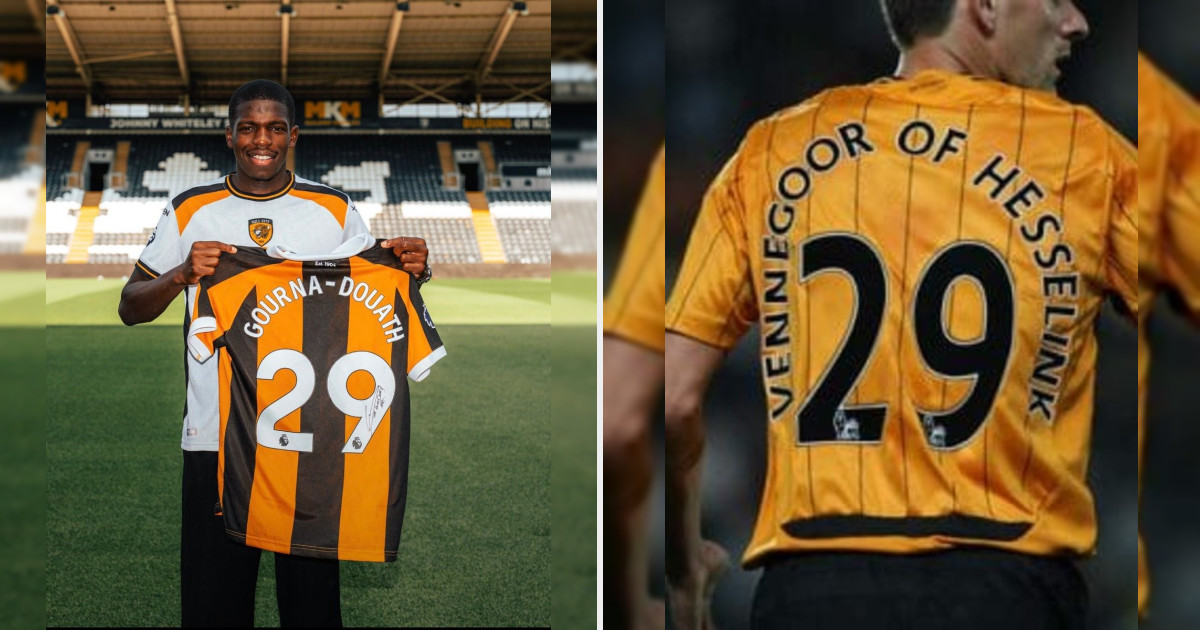
New Hull City Signing Brings Back Memories of Iconic Vennegoor of Hesselink Number 29 Kit Font Arc
Following Hull City's signing of French midfielder Lucas Gourna-Douath, kit enthusiasts and football fans quickly noticed a similarity to one of the most iconic shirt prints in Premier League history. Gourna-Douath was unveiled holding his new black and amber striped 26-27 home kit featuring his hyphenated surname curved in a deep horseshoe arc around the number 29.
The visual immediately drew viral comparisons to Dutch striker Jan Vennegoor of Hesselink, who famously wore the exact same squad number 29 for Hull City during the 2009-10 campaign. Vennegoor of Hesselink's 20-letter surname required an extreme rainbow arch on the back of his kit to fit around the Premier League typeface, creating an enduring aesthetic memory from the classic Barclays era.
The Hull City kit does not require a box at the back, unlike it might have been in the UEFA Champions League.